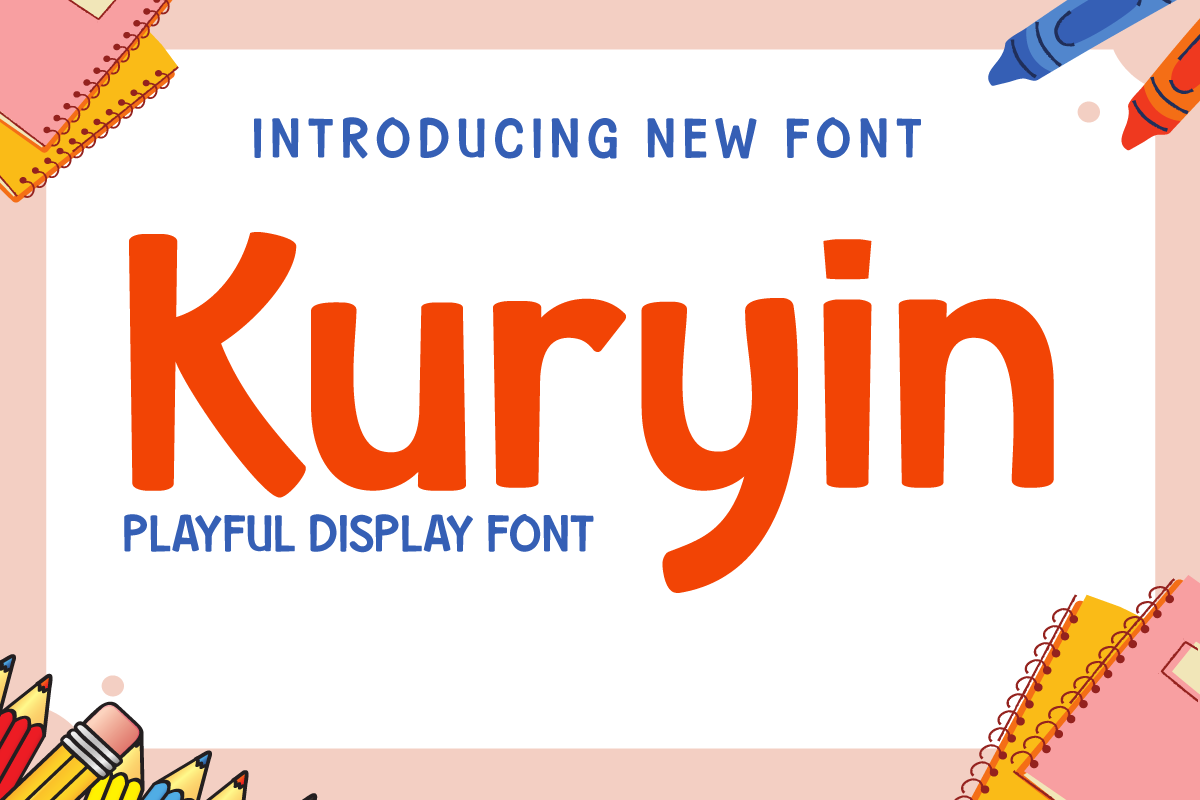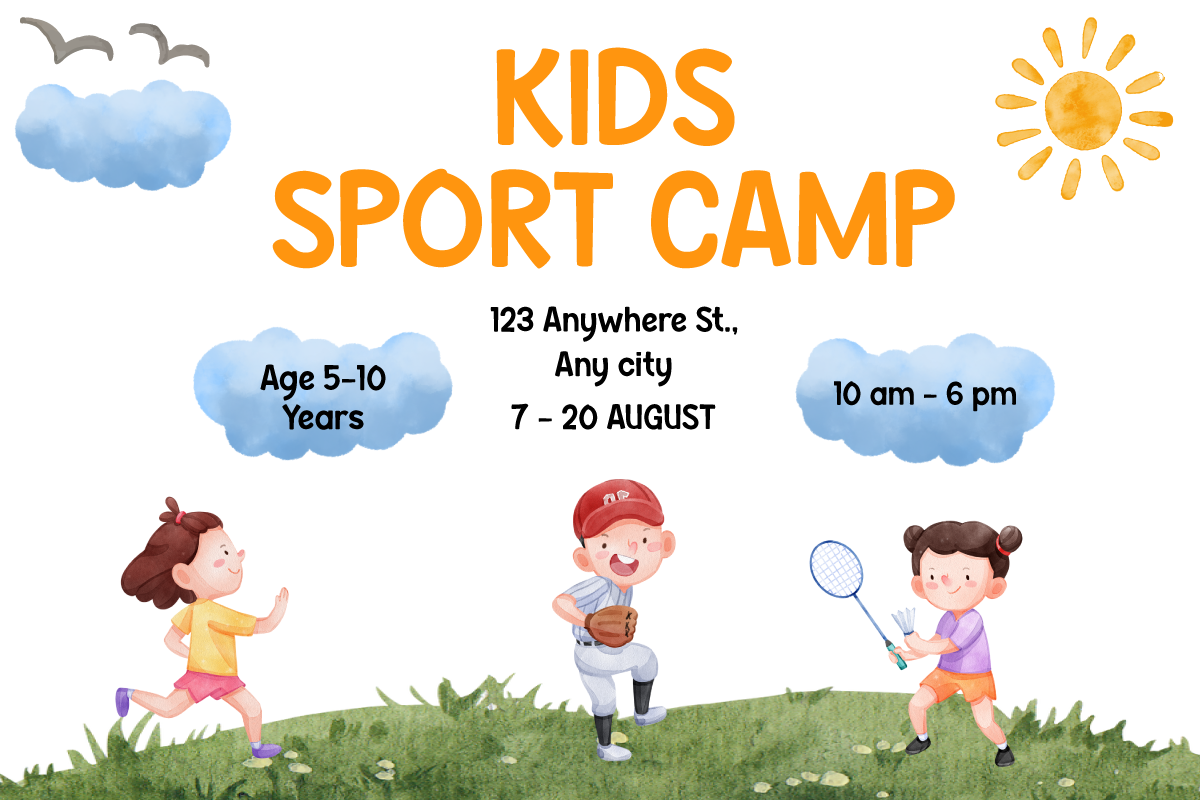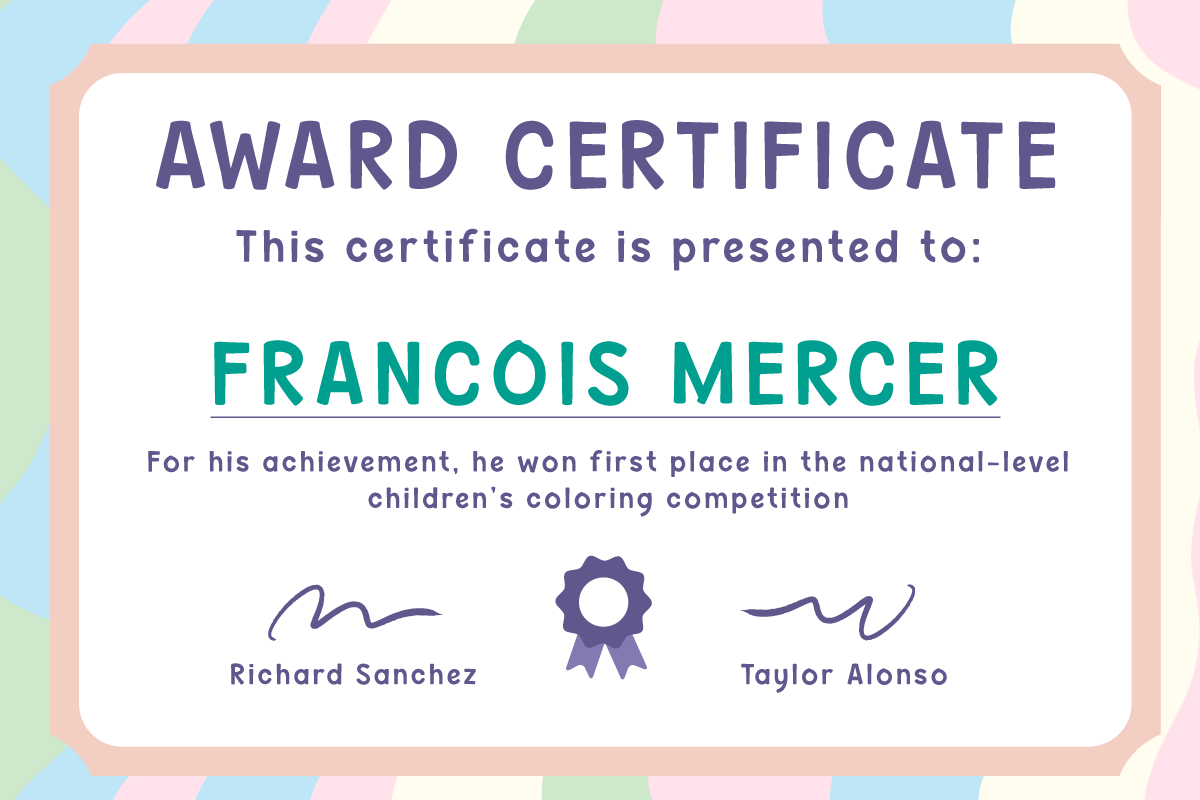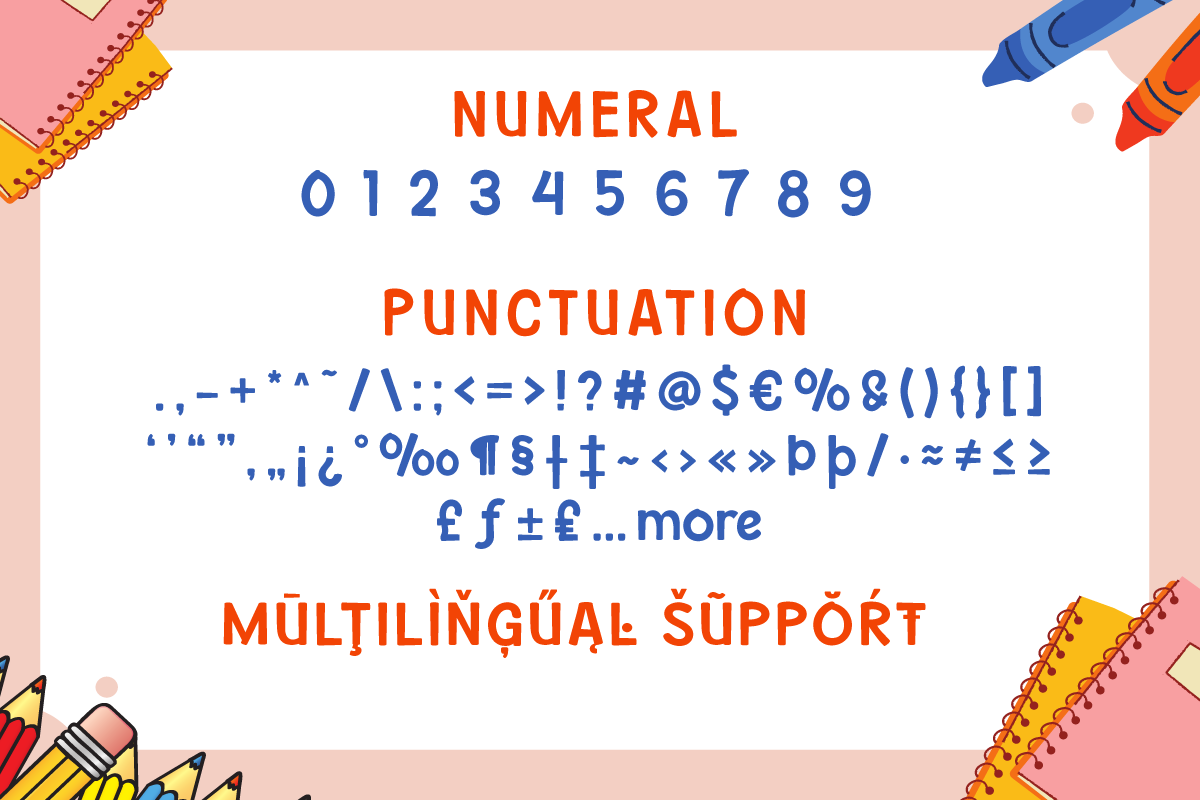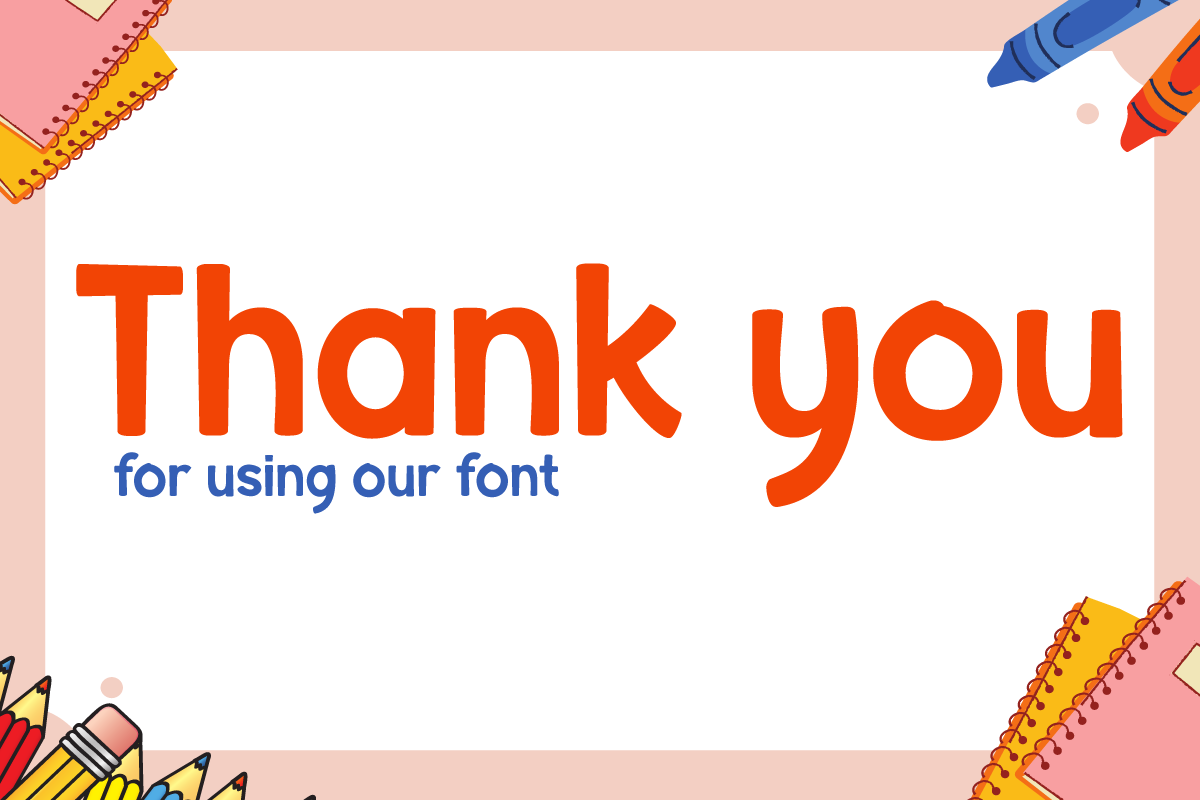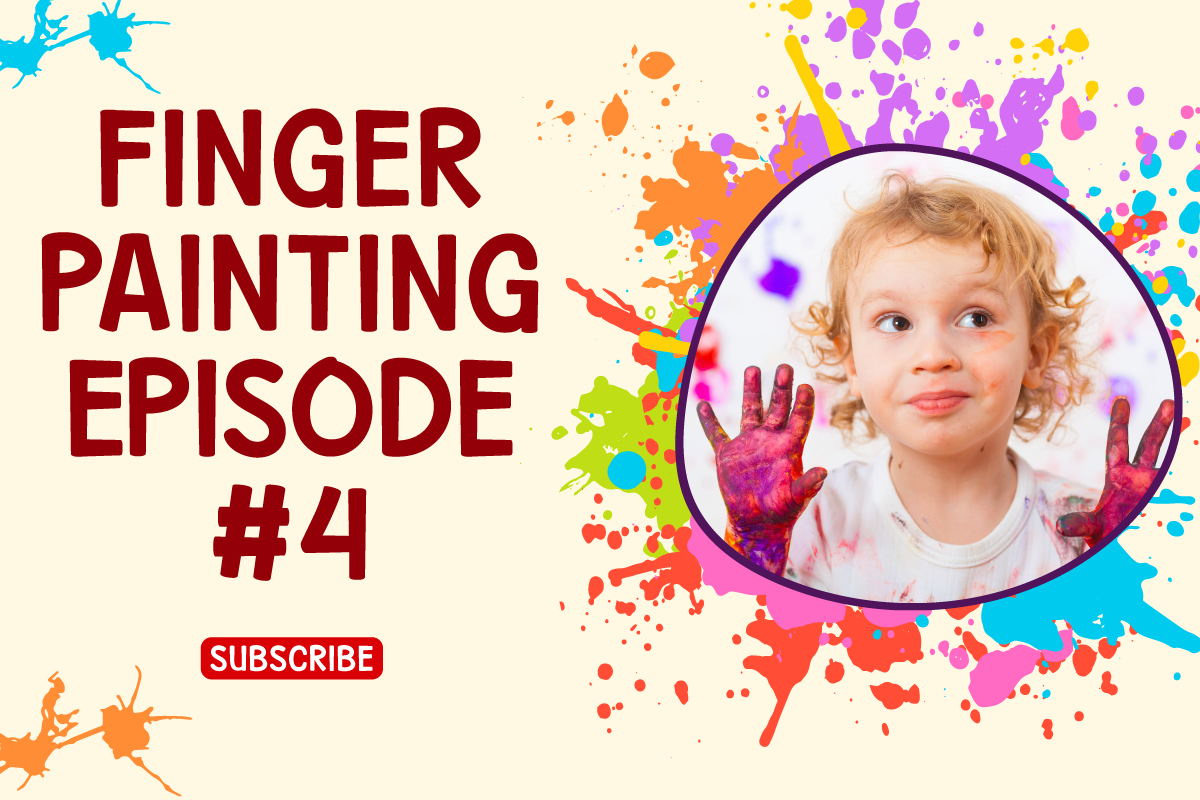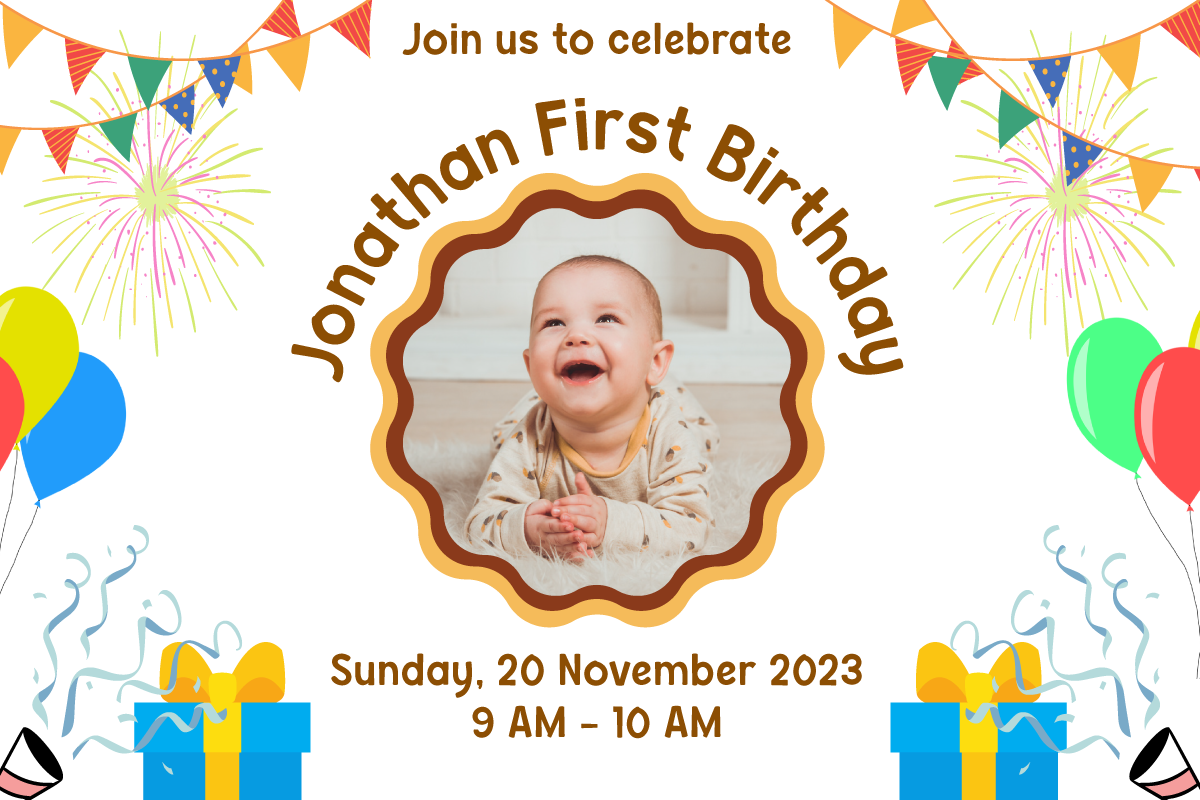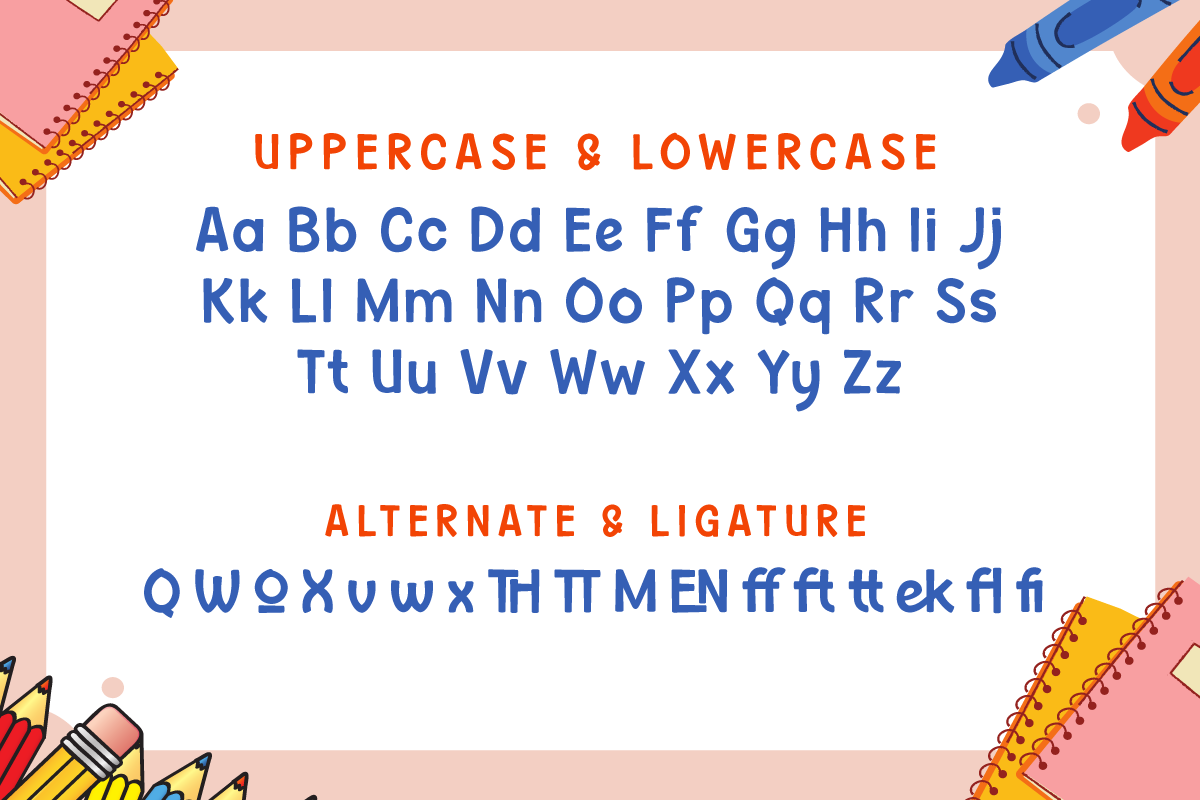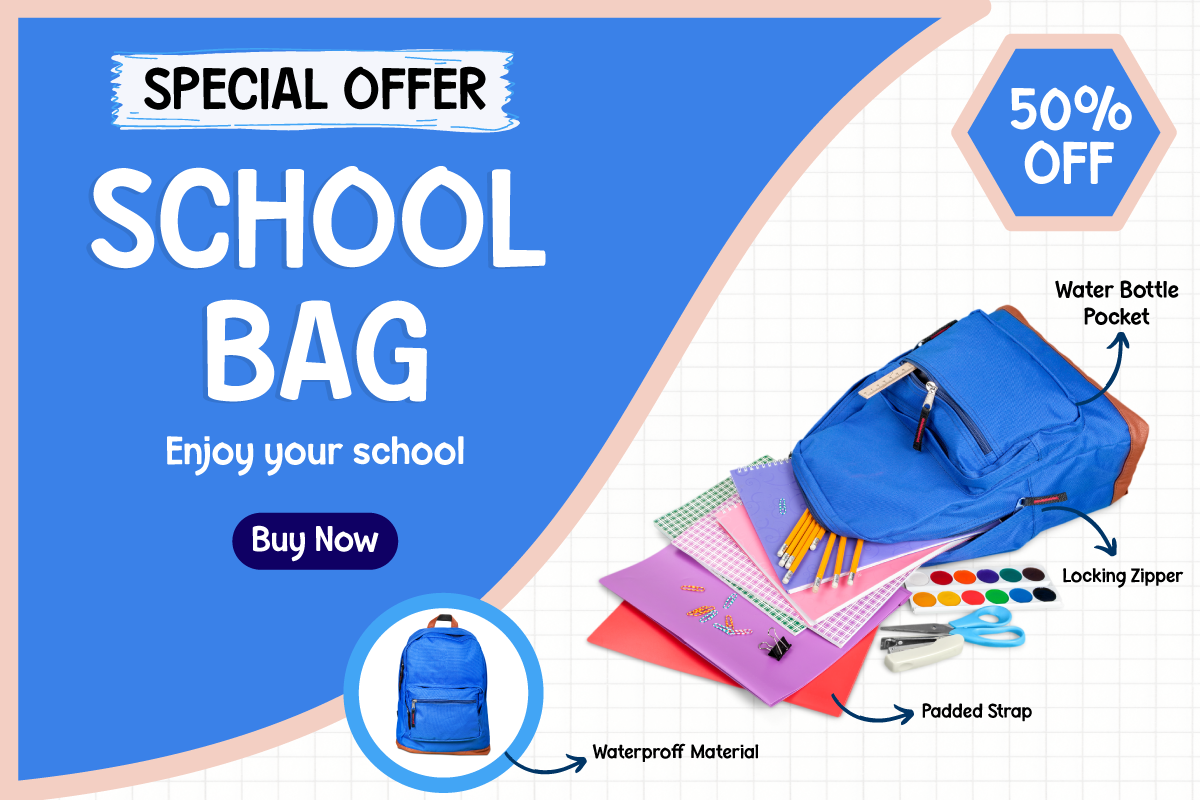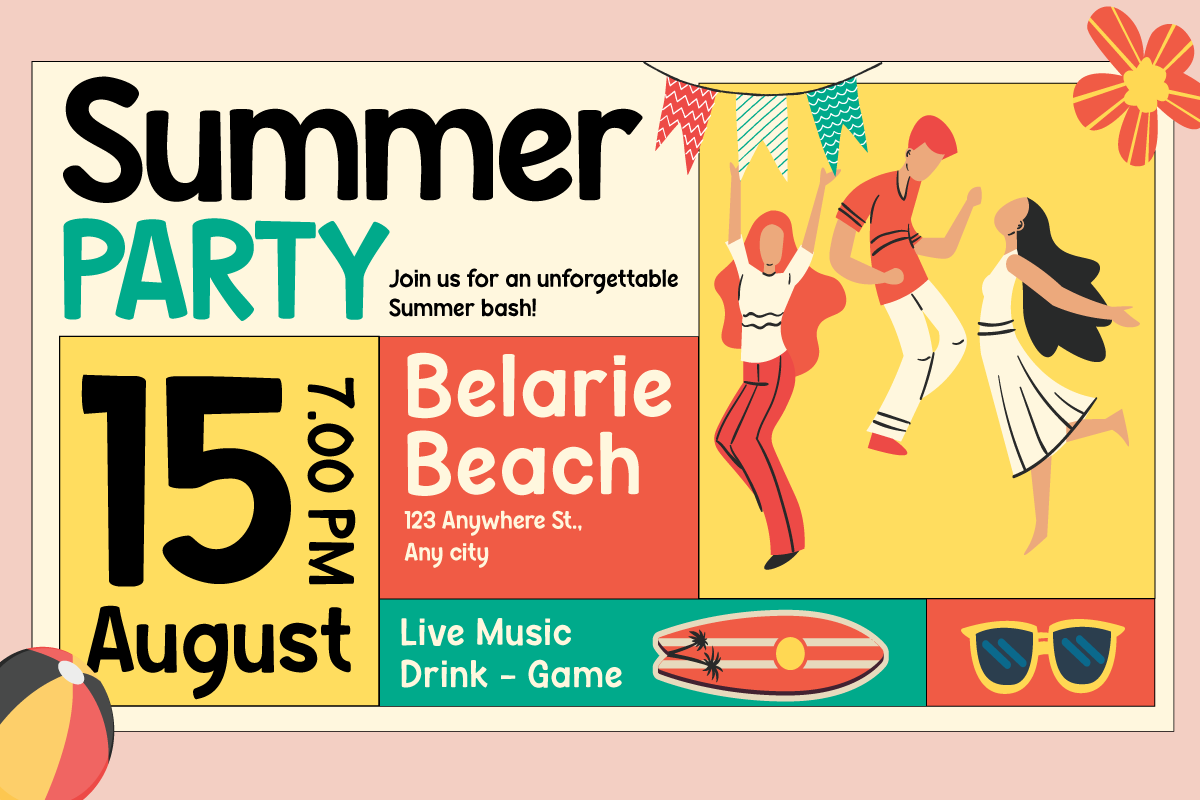
Kuryin | Playful Font Display
Introducing "Kuryin Font" - Where Playful Typography Meets Creativity!
Unleash your design's full potential with Kuryin Font, a lively and whimsical typeface that adds a touch of playfulness to your projects.
Kuryin Font is your go-to choice for designs that need a fun and vibrant personality. Its unique, playful characters are perfect for children's books, captivating posters, and standout branding that grabs attention.
With Kuryin Font, your designs will instantly exude a sense of joy and creativity, drawing your audience in. Whether you're crafting a cheerful invitation or crafting a memorable logo, this font infuses a playful spirit into your work.
Elevate your creative projects and let your imagination run wild with Kuryin Font. Embrace the whimsical charm of this typeface today and watch your designs come to life!
- Alternate, Ligature